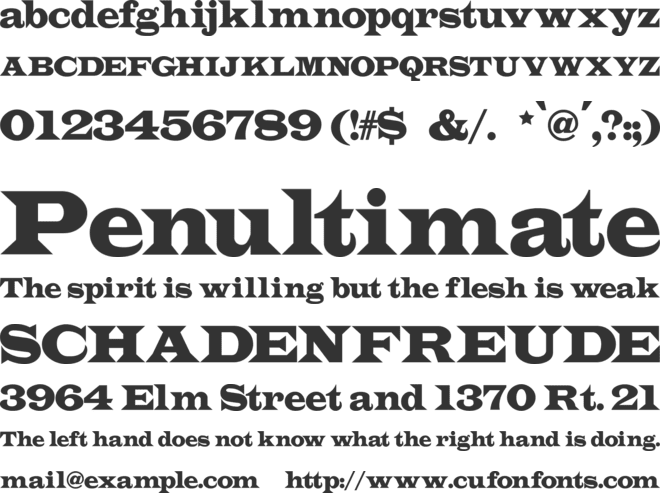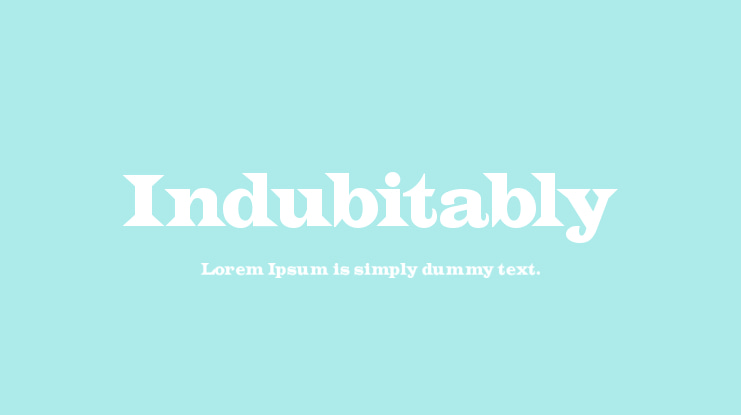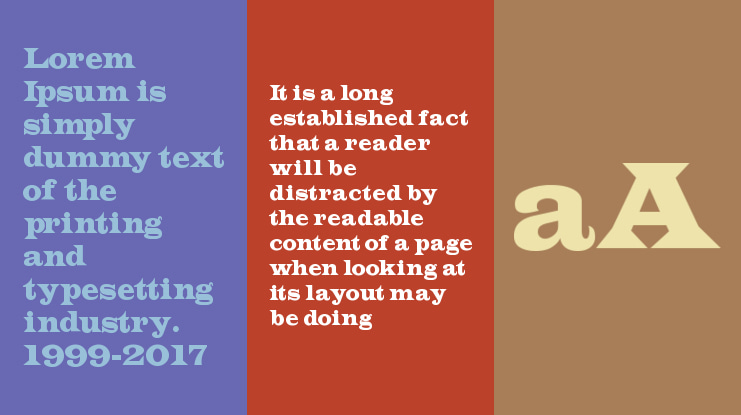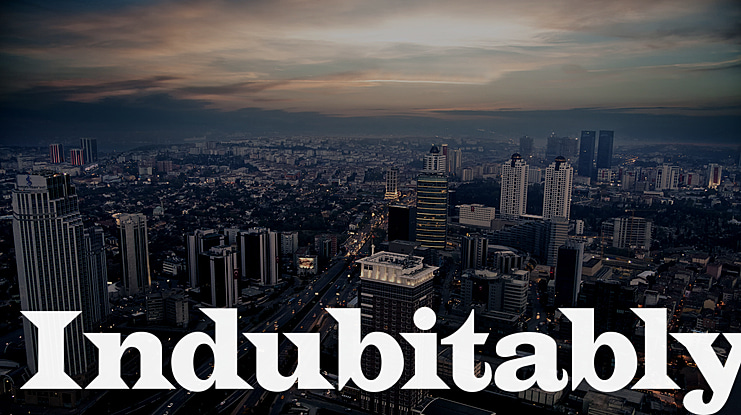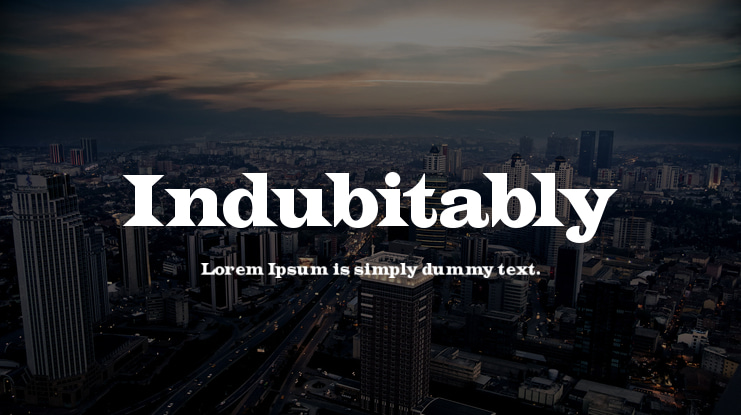
Indubitably Font
This font would be instantly recognizable if it were expanded one-and-a-half times: it’s the ever-popular, irrepressible Latin Wide. But before there was the wide version, there was the not-so-wide version, and it got a lot of mileage during the 50s. Suitable for murder mystery titles, travelogues and beatnik poetry. And thanks to Maynard G. Krebs for the name (the G., by the way, stands for Walter).